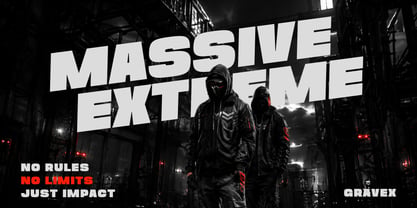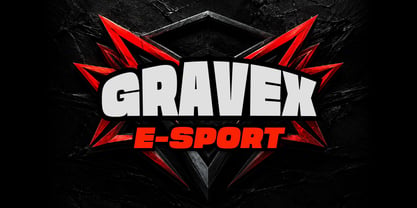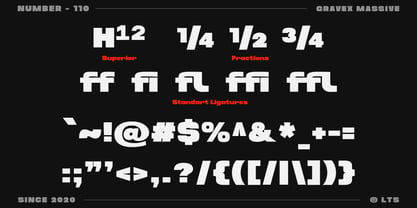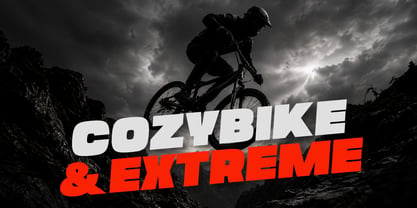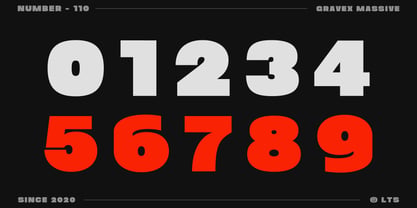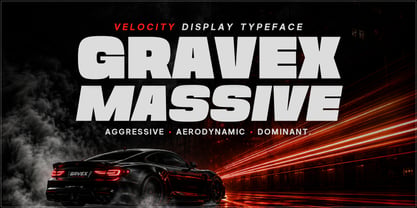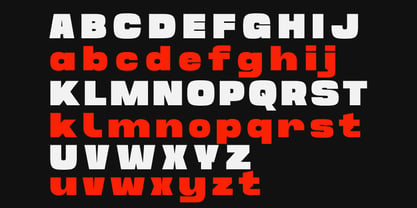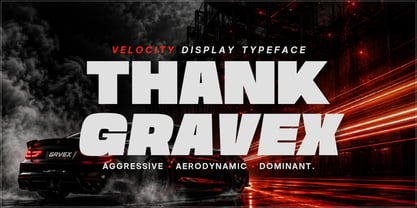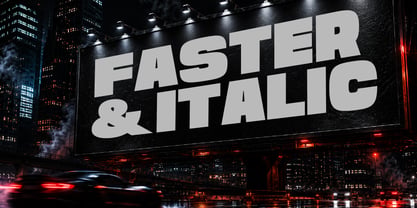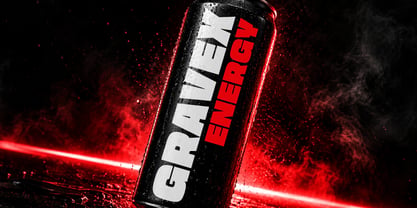
Gravex Massive
by Lettertype Studio
The Gravex Massive Font Family was designed by Diki Pradipta Tri Atmojo and published by Lettertype Studio. Gravex Massive contains 2 styles and family package options. More about this family
Gravex Massive is a bold velocity-inspired display typeface built for speed, power, and aggressive visual impact. Featuring a heavy geometric structure, aerodynamic italic motion, and high-performance letterforms, this typeface is designed to dominate modern sports branding, racing visuals, esports graphics, automotive campaigns, and high-energy advertising. The strong uppercase presence and dynamic slant create a fast-moving typographic identity that instantly captures attention.
Perfect for motorsport posters, gaming titles, gym branding, energy drink packaging, racing liveries, YouTube thumbnails, apparel graphics, and futuristic streetwear visuals, Gravex Massive delivers a loud commercial aesthetic with strong readability and modern industrial character. Whether used in logos, headlines, merchandise, or digital campaigns, this typeface is built for creators who want typography that feels powerful, fast, and unstoppable.
Designers: Diki Pradipta Tri Atmojo
Foundry: Lettertype Studio